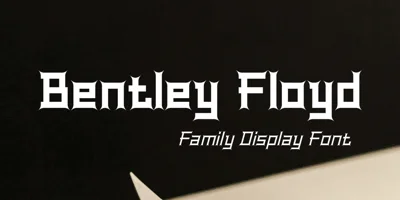
Bentley Floyd Font
Bentley Floyd Font is perfect for luxury automotive branding, high-end gentleman's club communications, premium men's fashion marketing, distinguished law firm materials, exclusive country club signage, and sophisticated masculine lifestyle campaigns. Its distinguished character makes it ideal for luxury car dealerships, premium menswear brands, exclusive private clubs, high-end barbershops, and any application requiring aristocratic typography that conveys masculine sophistication, British elegance, and the refined distinction of traditional gentleman's luxury and automotive excellence.
Bentley Floyd Font is exciting because it embodies the sophisticated elegance and masculine refinement of British luxury tradition through aristocratically crafted letterforms that reflect the impeccable craftsmanship and distinguished heritage of premium automotive and gentleman's culture. Its noble proportions and luxury-inspired details evoke the hand-finished interiors of luxury vehicles and the cultivated atmosphere of exclusive gentleman's establishments, making it perfect for brands celebrating masculine luxury and traditional British sophistication. The font's distinguished character transforms communications into expressions of aristocratic refinement.
Bentley Floyd Font family includes luxury-crafted weight variations typically featuring Light, Regular, Medium, and Bold options with aristocratic styling that maintains British luxury authenticity. The family often incorporates luxury symbols, automotive elements, and gentleman's ornaments designed for premium masculine applications, providing designers with comprehensive tools for creating authentic, luxury masculine-focused typographic compositions.
When selecting luxury masculine typography solutions, Bentley Floyd Font represents an exceptional choice for premium automotive and gentleman's lifestyle projects. This distinguished typeface brings instant British luxury authenticity to any design, making it invaluable for luxury automotive brands, premium masculine lifestyle companies, and exclusive gentleman's organizations celebrating traditional refinement. Whether you're developing luxury car branding, creating premium men's fashion campaigns, or designing exclusive club communications, Bentley Floyd Font provides the aristocratic sophistication and masculine elegance essential for commanding respect in today's luxury masculine marketplace.